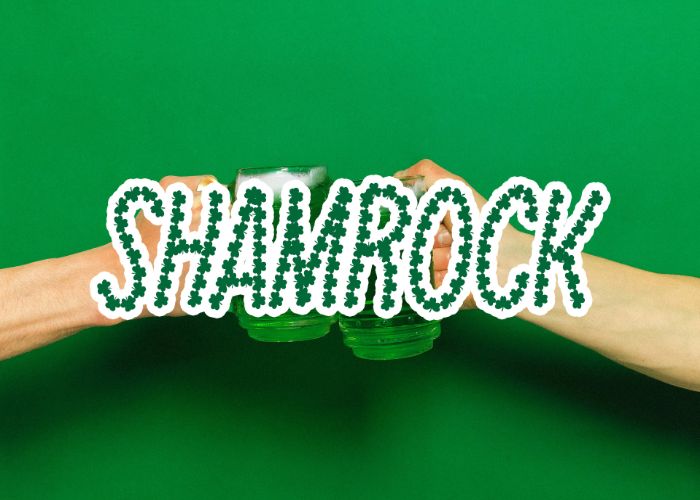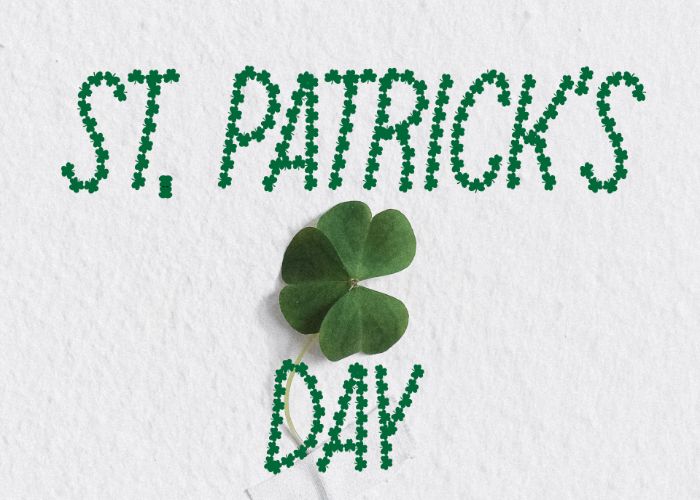
Pixelo’s you a free holiday font – Shamrock. This font is specifically designed for Saint Patrick’s Day.
Saint Patrick’s Day is still one of the most popular holidays. There are thousands of people that can’t wait for the 17th of March because it’s the only day when people in Ireland, Northern Ireland and around the world celebrate the life of a well-known Saint Patrick.
You can create amazing holiday creatives with this freebie.